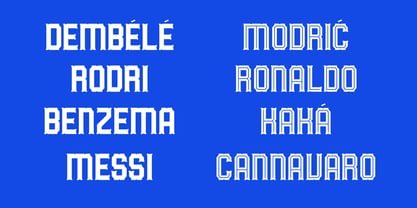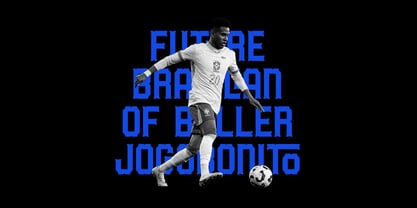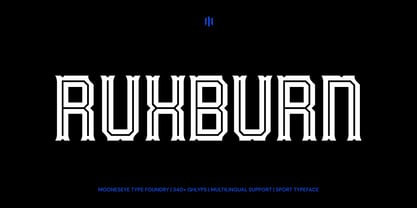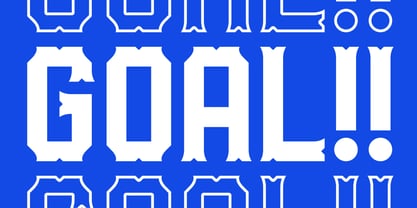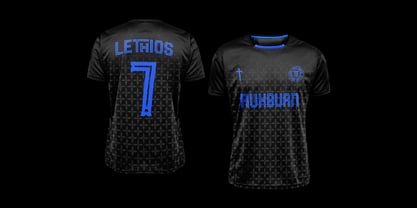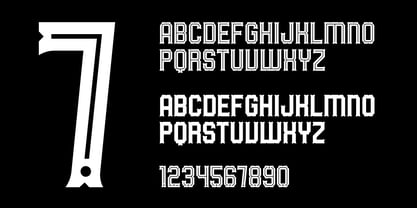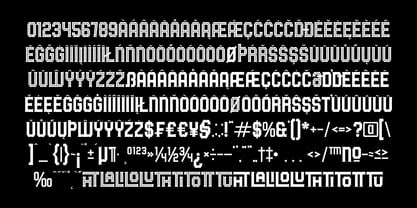
Ruxburn
by Mooneseye Studio
The Ruxburn Font Family was designed by Elhaq Farid and published by Mooneseye Studio. Ruxburn contains 2 styles and family package options. More about this family
Are you ready to elevate your branding to the big leagues? Meet Ruxburn, a powerhouse typeface that blends the raw intensity of modern street culture with the disciplined precision of professional stadium graphics. Whether you are designing the next iconic football jersey or a high-octane e-sports logo, Ruxburn delivers a look that is both "heavyweight" and incredibly sleek. Stop settling for generic "varsity" styles. Ruxburn offers a unique chiseled architecture that feels fast, strong, and undeniably premium. Use the Solid version for bold, punchy headlines that demand attention, or switch to the Inline version to create sophisticated, multi-layered looks perfect for high-end apparel and merchandise.
Designers: Elhaq Farid
Foundry: Mooneseye Studio
Mooneseye Studio, based in Indonesia, is a premier graphic design firm with a fervent passion for type design. Renowned for their expertise in creating visually compelling assets, the studio specializes in a broad spectrum of design services, including custom typefaces, innovative branding, and dynamic digital graphics. Their deep appreciation for typography drives their meticulous approach to each project, ensuring that every detail aligns perfectly with the client's vision. From crafting unique visual identities to producing engaging marketing materials, Mooneseye Studio combines artistic creativity with strategic insight to deliver designs that are not only aesthetically stunning but also highly effective. Their commitment to excellence and their ability to merge form with function make them a valued partner for businesses looking to enhance their visual presence and make a lasting impression in a competitive landscape. With Mooneseye Studio, clients can expect a design experience that is both professional and deeply creative, tailored to elevate their brand's impact.